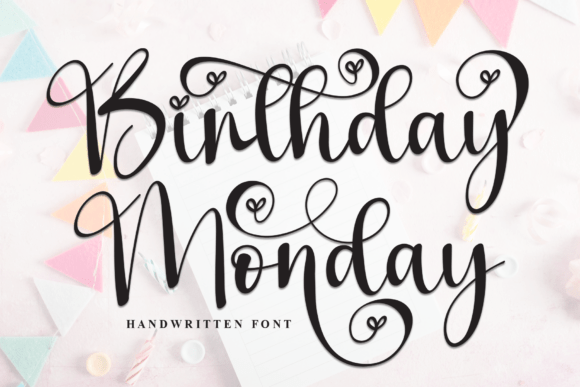
The Birth of Elegance: Unveiling the Birthday Monday Font
I’ll never forget the moment I stumbled upon the perfect font for a client’s birthday invitation project. I had been scouring through countless options, but nothing seemed to capture the essence of elegance and sophistication I was looking for. That was until I discovered the Birthday Monday font – a stylish script font that exudes refinement and contemporary charm. In this article, I’ll share my experience with this beautiful font, its features, and how to make the most of it in your designs.
A First Impression: What I Love About Birthday Monday
The Birthday Monday font has quickly become a favorite in my design arsenal, and for good reason. Here are a few things that I absolutely love about it:
• ✨ Elegant strokes and fluid curves: The font features beautifully crafted letterforms with a natural flow that gives it a hand-drawn feel with a modern twist.
• ✅ Versatility: Whether you’re working on a logo, invitation, packaging, or social media graphics, Birthday Monday adds a refined and sophisticated touch to any design.
• 💫 Polished details: The font’s attention to detail is impressive, with carefully crafted elements that elevate the overall aesthetic of your designs.
A Few Quirks to Keep in Mind
While the Birthday Monday font is exceptional, there are a few minor quirks to be aware of:
• 🤔 Limited use in body text: Due to its script nature, Birthday Monday is best suited for headlines, titles, or short paragraphs. It may not be the most readable choice for lengthy body text.
While the true story behind Birthday Monday’s creation remains a mystery, it’s easy to imagine that the designer was inspired by the elegance of hand-drawn calligraphy and the sophistication of modern typography. Perhaps they aimed to create a font that would bring a touch of refinement to everyday designs, making them feel more special and luxurious.
What makes Birthday Monday a versatile font? The font’s elegant strokes, fluid curves, and polished details make it suitable for a wide range of design applications, from logos and invitations to packaging and social media graphics.
Can I use Birthday Monday for body text? While Birthday Monday is beautiful, it’s best suited for headlines, titles, or short paragraphs due to its script nature. For longer body text, consider a more readable font.
Is Birthday Monday suitable for kids’ designs or playful projects? While Birthday Monday is elegant and sophisticated, it may not be the best choice for kids’ designs or very playful projects. Consider a more fun and lively font for these types of designs.